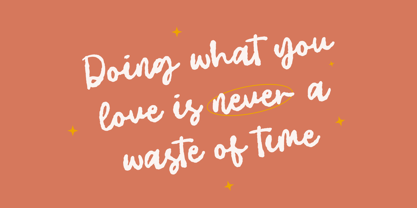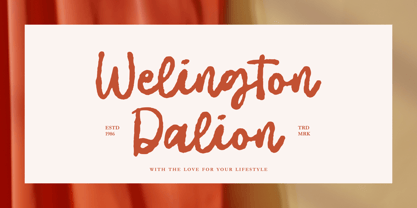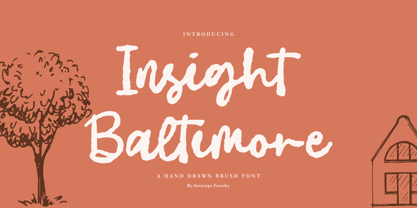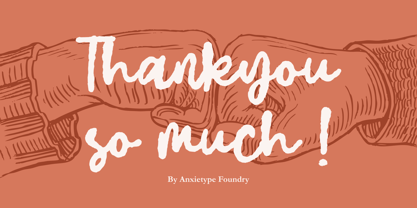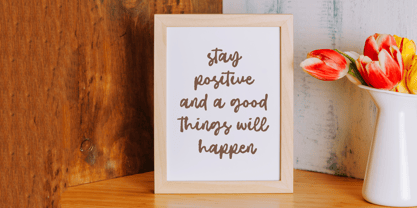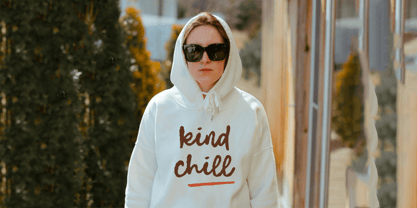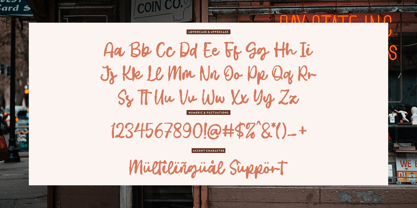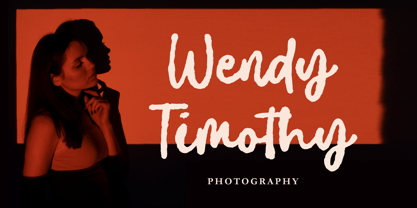
Insight Baltimore
by Anxietype Foundry
The Insight Baltimore Font Family was designed by Annas Rifky Anhar and published by Anxietype Foundry. Insight Baltimore contains 1 styles.
Introducing Insight Baltimore, an artisanally-crafted handbrush font presented to you by Anxietype Foundry. Flourishing with creativity, it is an impeccable choice for a range of applications! Whether you are embarking on an ambitious branding project, putting together your next issue of a magazine, or creating engaging social media content, Insight Baltimore has got you covered. It's also wonderfully suited for wedding invitations, lending a touch of elegance and refinement. But, above all, it truly shines when used to make your words rise above any background. In the realm of typography, Insight Baltimore stands out for its unique blend of style and versatility.